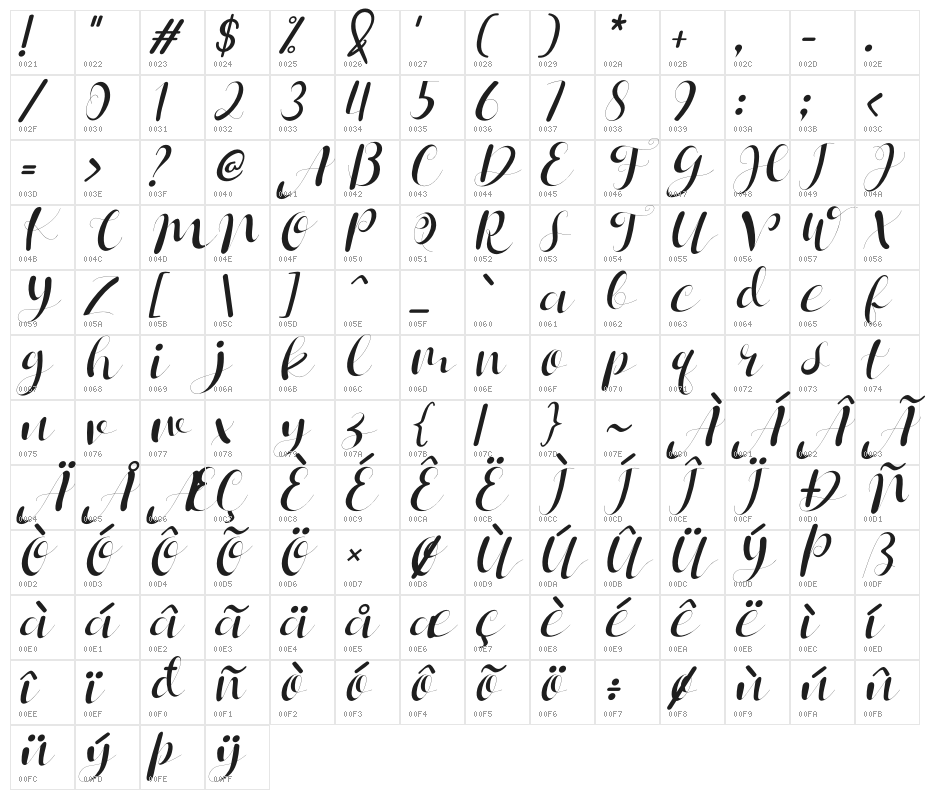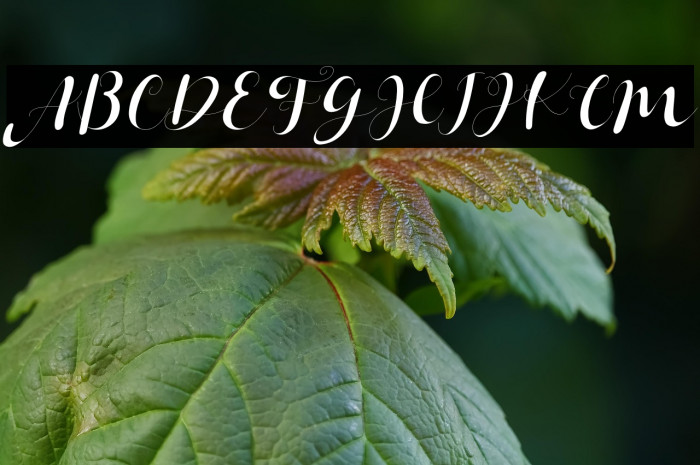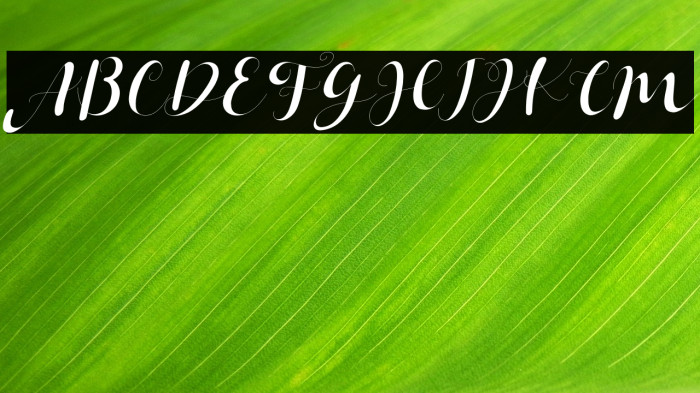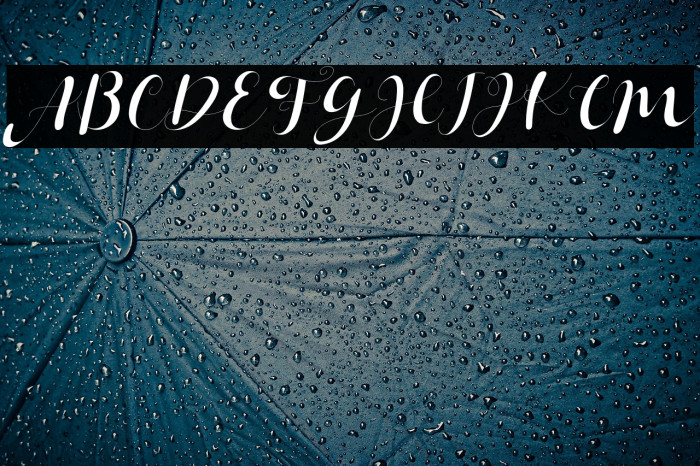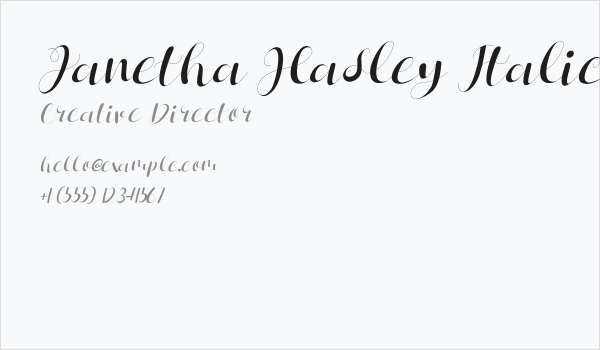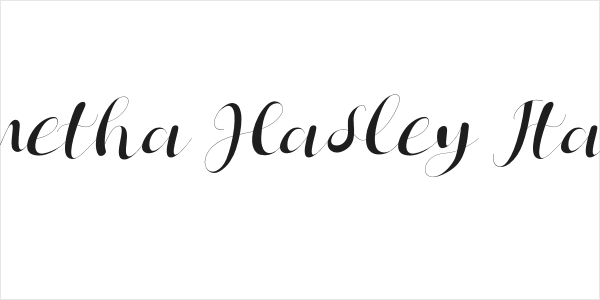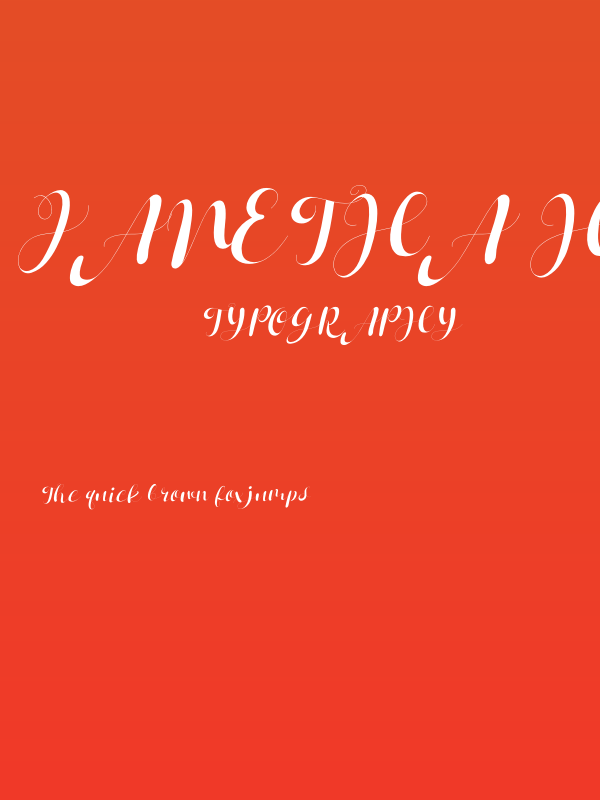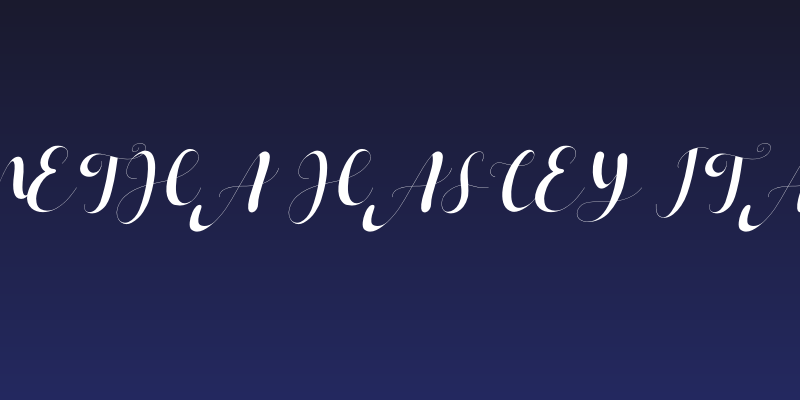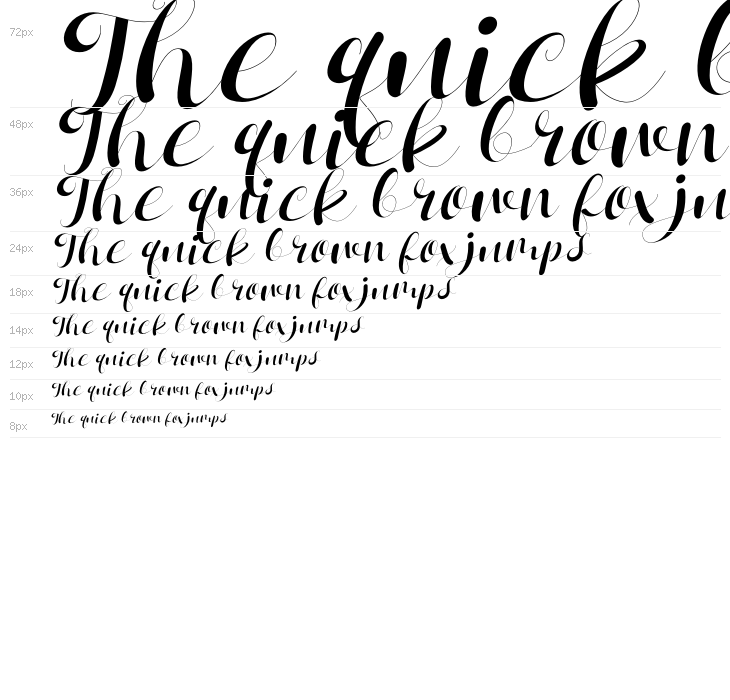
Janetha Hasley Italic Font
Janetha Hasley Italic Description
This font exudes elegance and sophistication with its flowing, cursive style. The characters are intricately designed with delicate swashes and flourishes, giving it a graceful and artistic appearance. The uppercase letters are particularly ornate, featuring extended loops and curves that add a touch of drama. The lowercase letters maintain a consistent flow, enhancing readability while preserving the decorative nature. Numbers and special characters are equally stylized, ensuring a cohesive look across all text elements. This font is perfect for projects that require a touch of luxury and refinement.
| Proposed Projects | Ideal for wedding invitations, luxury branding, elegant logos, and high-end product packaging. |